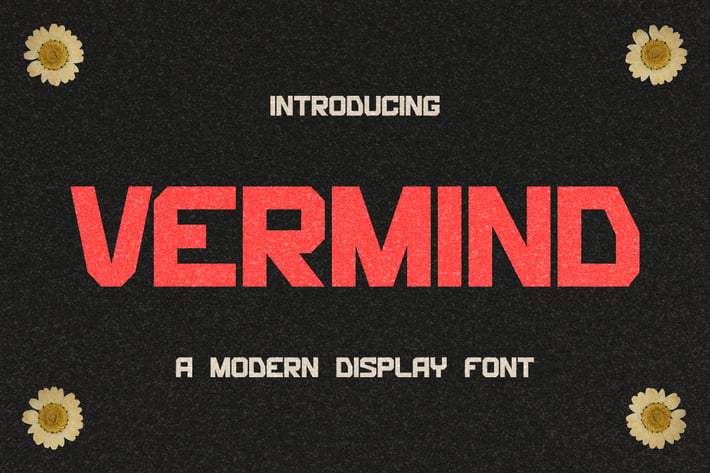
Vermind - Modern Bold Display Font
Vermind is a Display Modern Bold Typeface Sans Serif that's perfect for your next branding project. Created with bold & sci-fi theme. Perfect for your next logo design, game interface, layout content, movie, poster, album and cover.